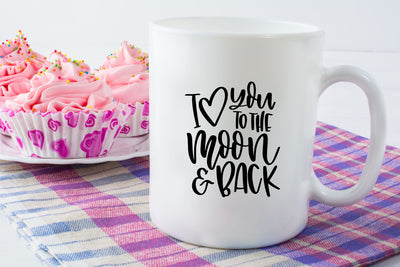
Wedding SVG | Family Quote SVG | Love You to the Moon
This wedding SVG file or family quote SVG file can be used to craft so many great things for those you love. It states, I 'heart' you to the moon and back and is hand lettered for a unique look. This design makes the perfect nursery wall art SVG or a gift for mom. Our family SVG files make great craft projects.